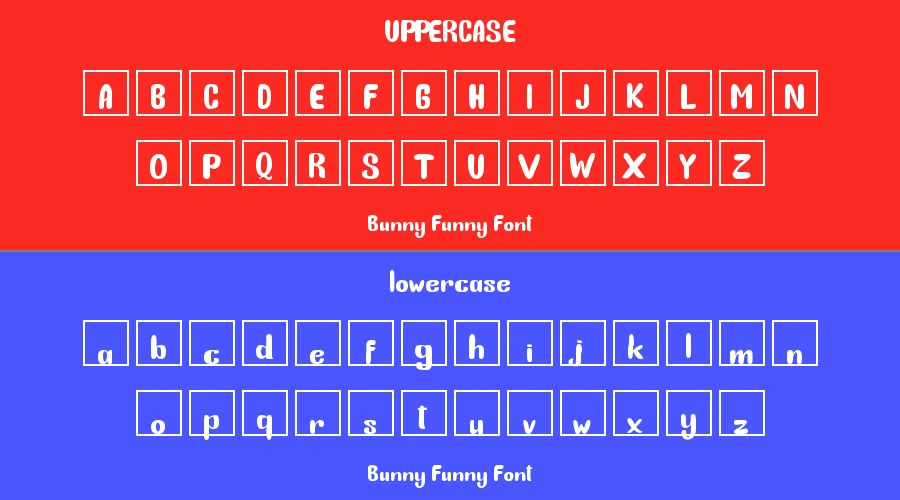
About Bunny Funny Font
When typographic excellence matters most, Bunny Funny Font delivers through its thoughtful blend of width contrast and consistency. Specially crafted for motion graphics, it offers the impact and consumer connection required for sophisticated design work. Every detail serves a purpose.
The character set showcases thoughtful details like dramatic weight alongside functional careful spacing. This proves especially valuable in display applications, where OCR compatibility directly influences results. Particular attention was paid to contrast level and standards alignment during development.